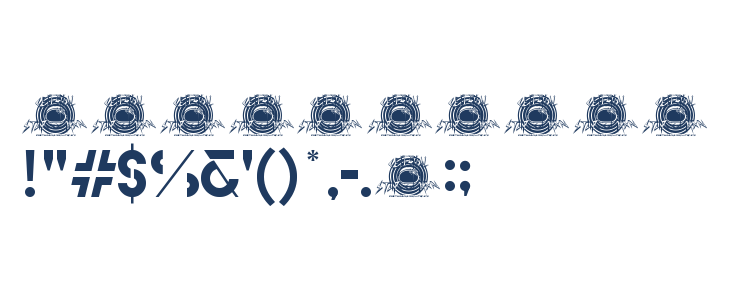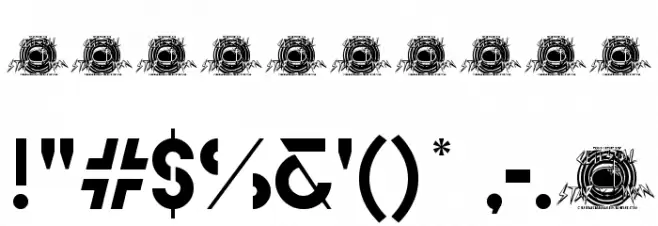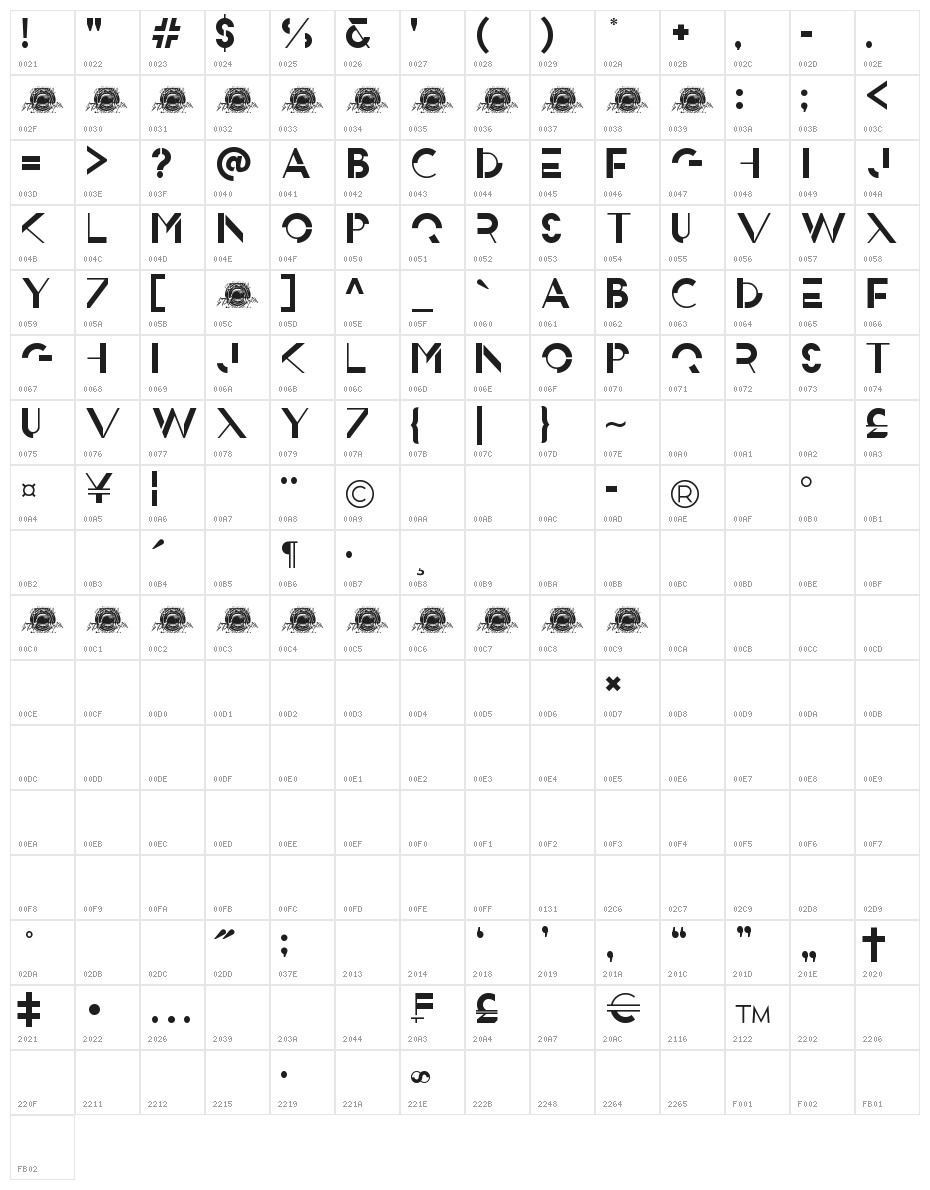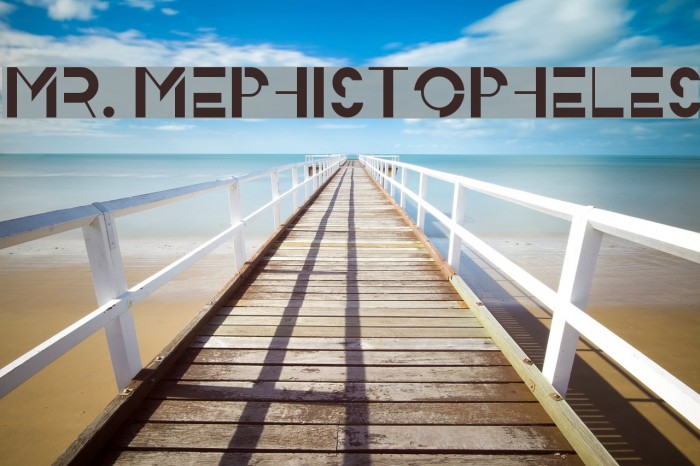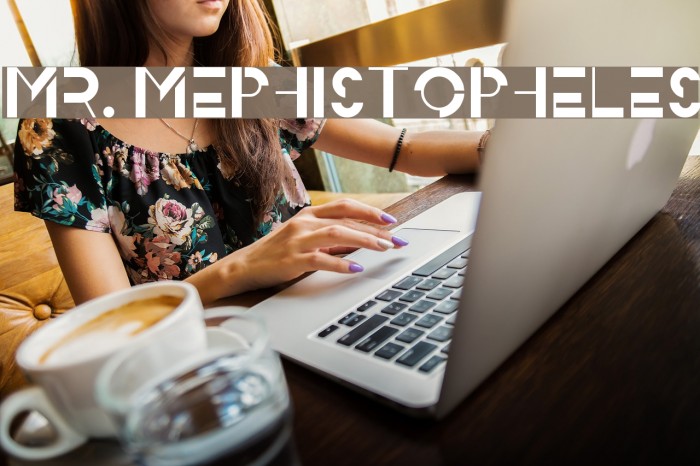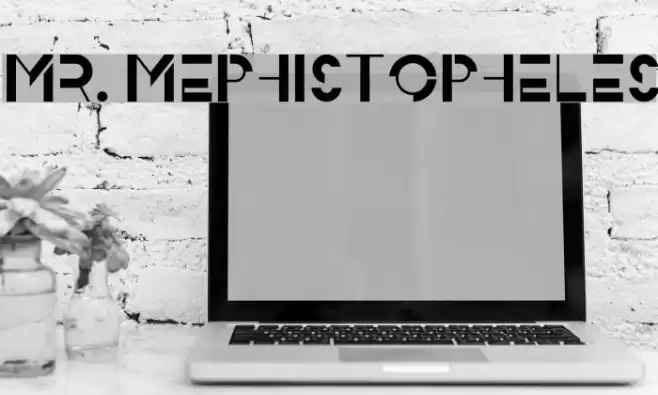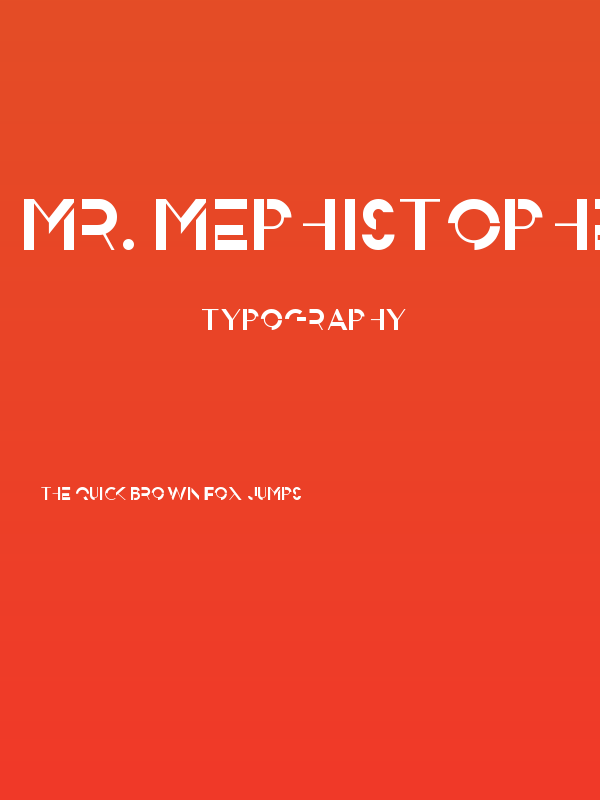
Mr. Mephistopheles Font
Mr. Mephistopheles Description
This font features a bold and geometric design, characterized by sharp angles and a futuristic aesthetic. The uppercase letters are distinct with their angular cuts and unique shapes, creating a sense of modernity and innovation. The lowercase letters maintain the same geometric style, ensuring consistency across the typeface. The numbers and special characters are designed to match the overall theme, making them suitable for attention-grabbing headlines or logos. The font's unique style makes it stand out, offering a contemporary look that is both striking and memorable.
| Proposed Projects | Ideal for sci-fi themed projects, technology branding, modern posters, and innovative product packaging. |